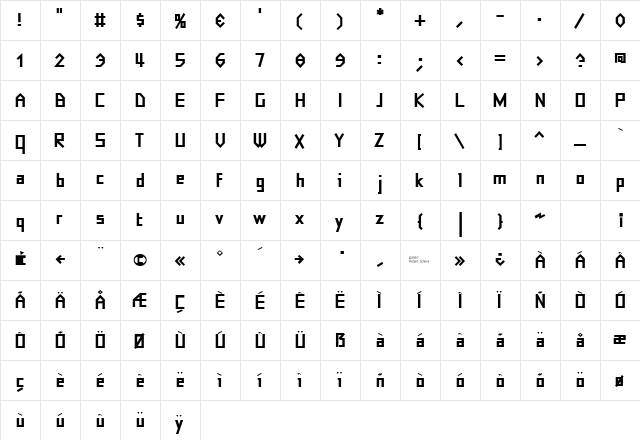
Eyebel Bold
Design Context for Eyebel Typeface
Eyebel takes a measured approach to typography — its balanced proportions and neutral character make it a reliable workhorse for both digital and print work. Its bold stroke weight gives it real presence on the page.